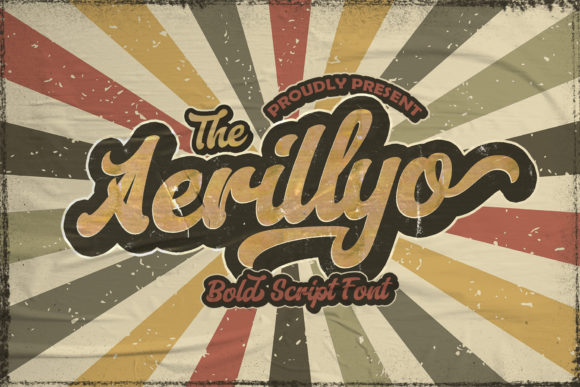
The Aerillyo Font: A Cute and Bold Script for Creative Projects
As a designer, I’ve had my fair share of struggles when it comes to finding the perfect font for a project. I recall working on a branding project for a vintage-inspired boutique, and spending hours scouring the internet for a font that captured the essence of their retro aesthetic. That’s when I stumbled upon the Aerillyo font – a cute and bold script that instantly won my heart.
First Impressions: A Personal Review
So, what makes Aerillyo so special? Let’s dive into the good stuff! 😊
- ✨ Unique and eye-catching design: Aerillyo’s curved and rounded touches make it stand out from other script fonts.
- ✅ Vintage and retro vibe: Perfect for projects that require a nostalgic feel.
- 💕 Perfect for branding and stationery: Aerillyo’s bold and playful design makes it ideal for logos, business cards, and more.
Of course, no font is perfect, and Aerillyo has a few quirks to consider:
- 🤔 Limited use in formal contexts: Aerillyo’s playful design may not be suitable for formal documents or corporate projects.
- ⚠️ Requires careful kerning: As with any script font, kerning can be a challenge, especially at smaller font sizes.
The Story Behind Aerillyo: Designer Inspiration
Aerillyo was designed with a passion for vintage and retro aesthetics. The designer aimed to create a font that was both bold and playful, with a unique character that would stand out in any project. While the exact inspiration behind Aerillyo is unclear, it’s evident that the designer was driven by a love for classic typography and a desire to create something fresh and exciting.
- Q: What type of projects is Aerillyo best suited for?
- A: Aerillyo is perfect for branding, stationery, quotes, and more. Its vintage and retro vibe makes it ideal for creative projects that require a unique touch.
- Q: Is Aerillyo a difficult font to read?
- A: While Aerillyo is a script font, it’s designed to be legible. However, as with any font, it’s essential to consider the context and use it at an appropriate font size.